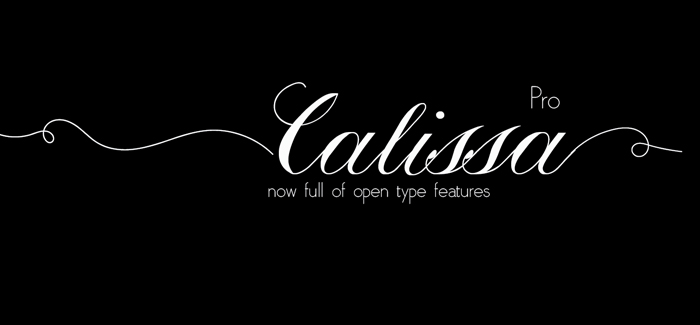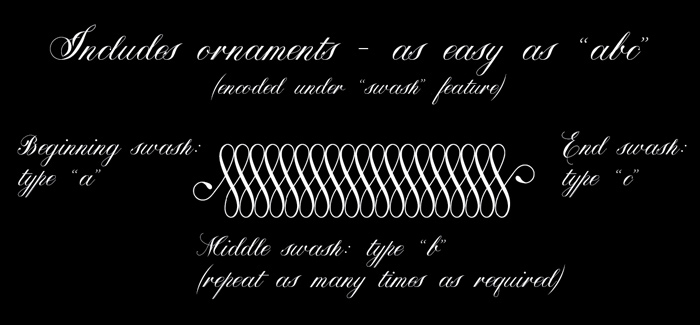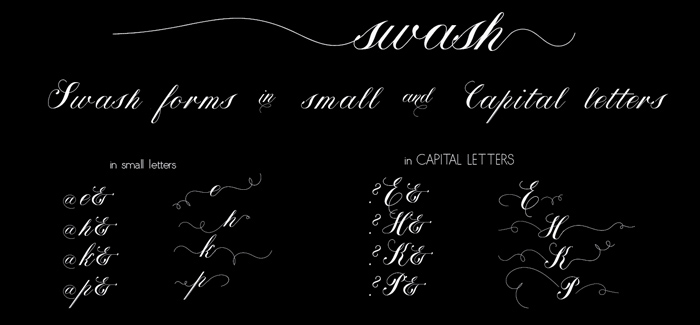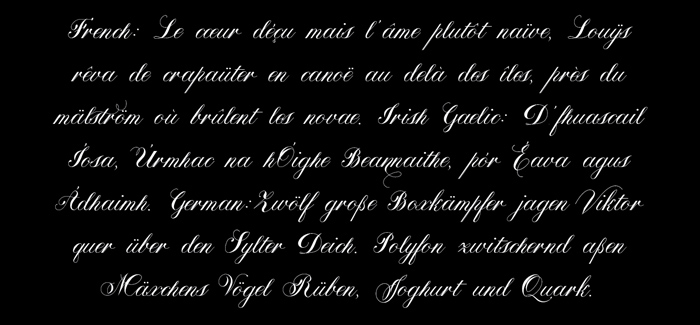
Calissa Pro font
Calissa Pro font by polish designer Aga Silva is a multilingual, handwritten stylish copperplate calligraphy font, a sort of upgrade to issued earlier this year Calissa font. Its script contains over 1800 glyphs and has many open type features. Calissa Pro comes in wide variety of shapes, fancy swash forms in small and Capital letters, alternates, ligatures and lettering – all easily available at a mouse click.